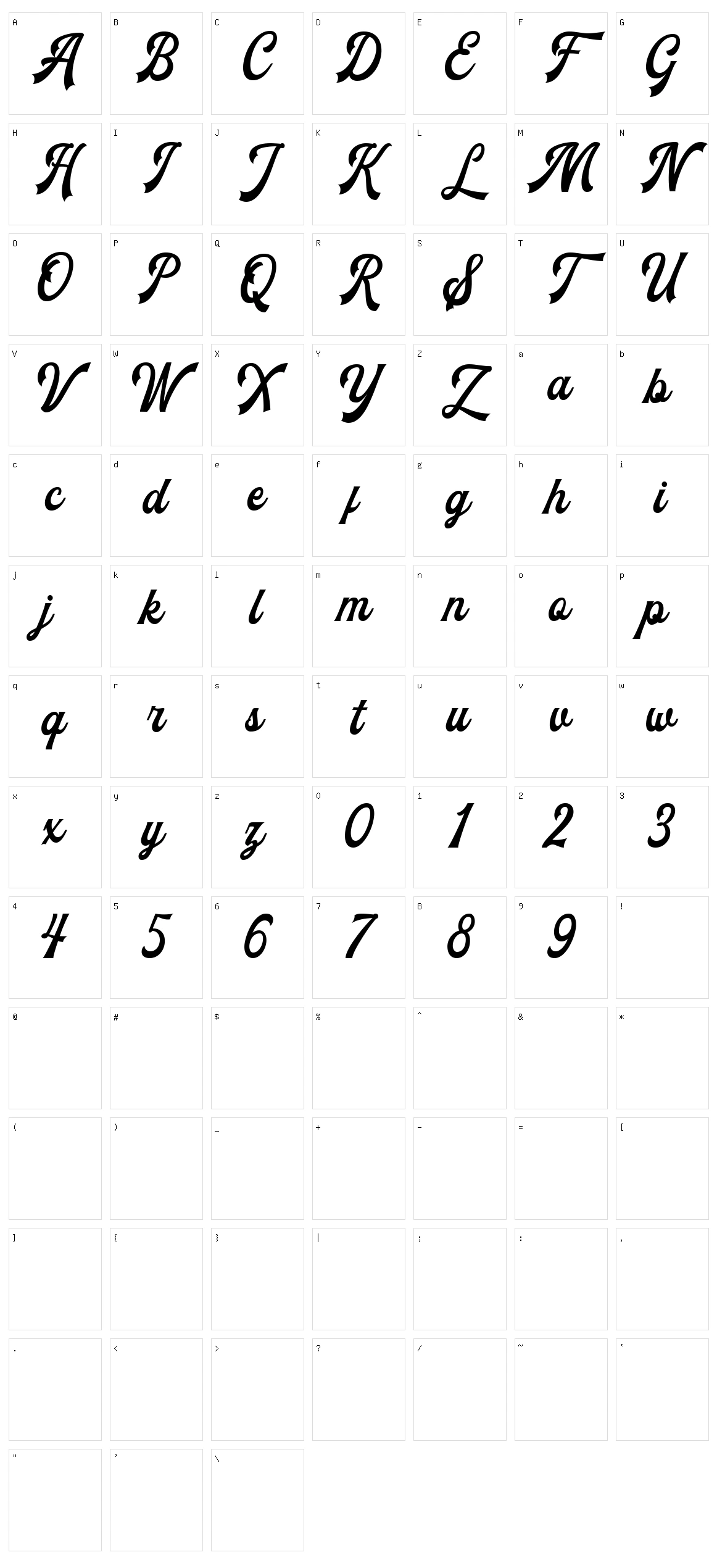
The free font The Blendhes is carefully designed by Ydhra Studio, showcasing a thoughtful balance of creativity and usability and falls under the Old-School font style. When you download the ZIP file, it contains only 29.52 KB of font files, making it lightweight and quick to download. Please review the license details below to understand permitted usage and distribution rights. If license information is not available, we recommend using this font for personal projects only or contacting the author directly for commercial usage permissions.